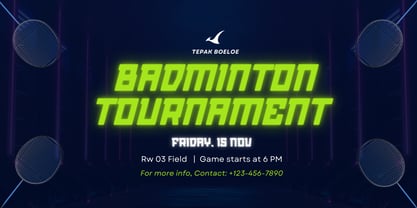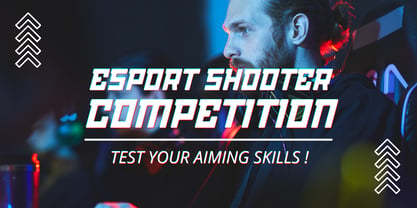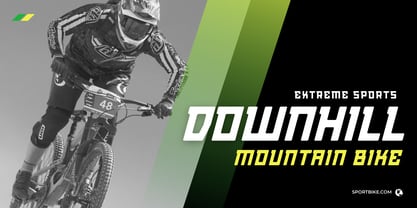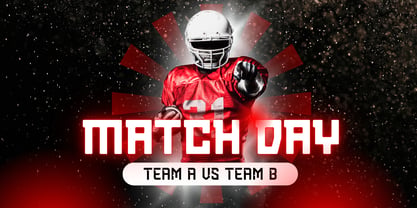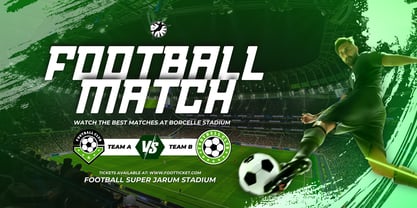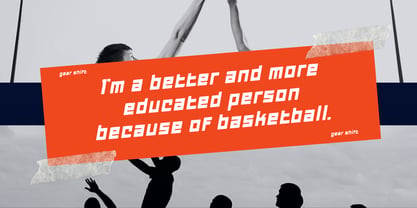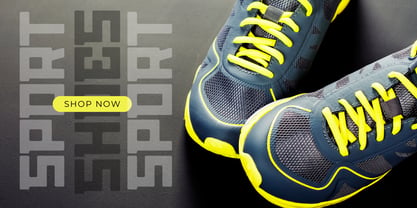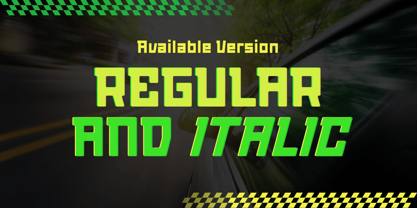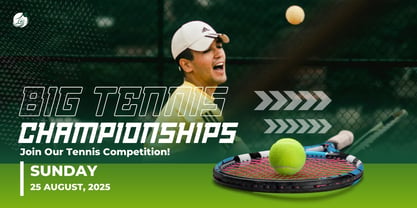
Gear Shift
by Sronstudio
The Gear Shift Font Family was designed by Muhamad Yusron Billah and published by Sronstudio. Gear Shift contains 2 styles and family package options. More about this family
Gear Shift is a bold and dynamic sports font designed to bring energy and motion to your designs. With strong shapes and a competitive spirit, this typeface is perfect for team sports logos, posters, athletic branding, jerseys, and more. Available in two styles — Regular and Italic — Gear Shift delivers a powerful, fast-paced vibe that’s ready for any high-impact visual.
- Two styles: Regular & Italic
- Uppercase & lowercase characters
- Numerals & punctuation
- Multilingual support
Designers: Muhamad Yusron Billah
Current Foundry: Sronstudio